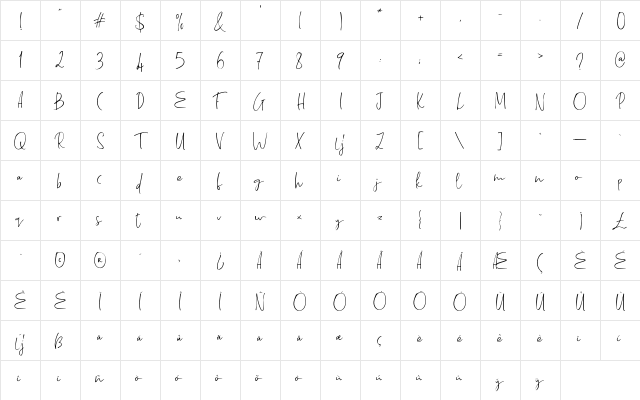
Design Context for ThinkCosmic Typeface
ThinkCosmic is a composed and adaptable typeface that performs quietly and consistently across a wide range of design contexts. The delicate stroke weight brings airiness and refinement to layouts.
Pro Tip: Pair ThinkCosmic with a font of contrasting weight or personality to build a more expressive typographic hierarchy.